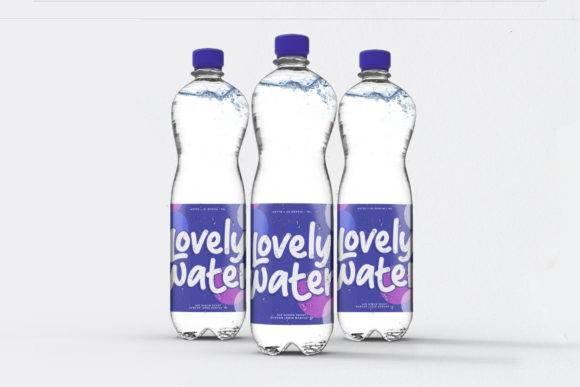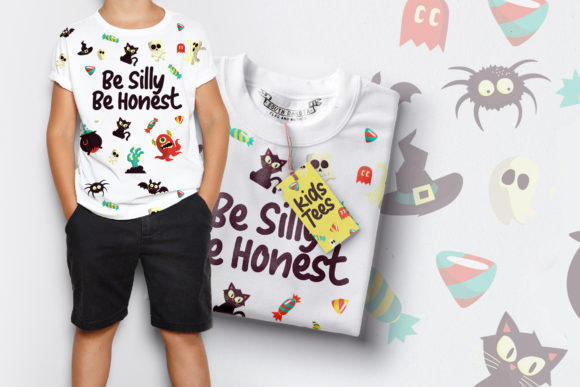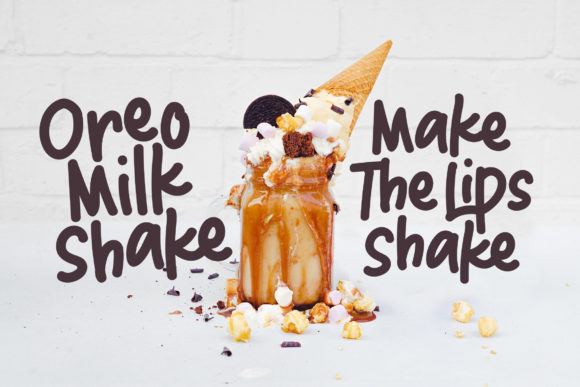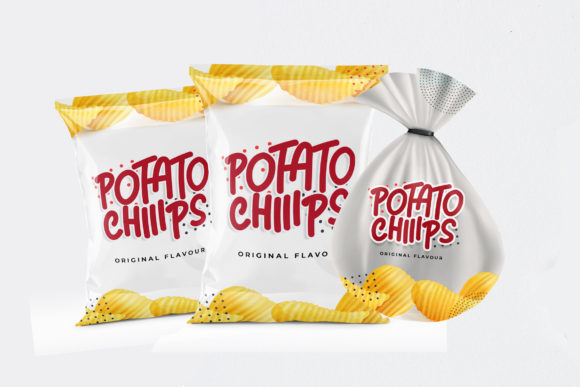
Candle Light Font: A Cute and Casual Display Font for Your Creative Projects
Are you looking for a font that can add a touch of warmth and friendliness to your designs? Look no further than Candle Light, a charming display font that’s perfect for a wide range of creative projects. In this article, we’ll take a closer look at Candle Light, exploring its features, benefits, and uses, as well as providing tips and inspiration for designers and crafters.
What is Candle Light Font?
Candle Light is a cute and casual display font with an incredibly friendly feel. Designed to evoke the warmth and coziness of a candle’s gentle glow, this font is sure to bring a smile to your face. Its playful, approachable style makes it perfect for use in a variety of contexts, from web design and print materials to moving images and more.
Key Features of Candle Light Font
So what makes Candle Light so special? Here are just a few of its key features:
- Cute and casual style: Candle Light has a playful, laid-back vibe that’s perfect for designs that need to feel friendly and approachable.
- Display font: With its bold, eye-catching style, Candle Light is designed to make a statement. Use it to add emphasis and draw attention to key messages or elements.
- Flexible: Whether you’re designing for web, print, or other applications, Candle Light will look spectacular. Its versatility makes it a great choice for a wide range of projects.
Benefits of Using Candle Light Font
So why should you choose Candle Light for your next project? Here are just a few benefits of using this lovely font:
- Adds warmth and personality: Candle Light’s friendly style can help bring a human touch to your designs, making them feel more approachable and engaging.
- Easy to read: Despite its playful style, Candle Light is surprisingly legible, making it a great choice for use in body text as well as headlines.
- Versatile: With its bold, display style, Candle Light can be used in a wide range of contexts, from posters and flyers to social media graphics and website headers.
Using Candle Light Font in Your Designs
So how can you use Candle Light in your designs? Here are a few ideas to get you started:
- Headlines and titles: Candle Light’s bold style makes it perfect for use in headlines and titles, where you want to grab attention and make a statement.
- Signs and posters: Add a touch of warmth and personality to your signs and posters with Candle Light. Its playful style is sure to stand out.
- Social media graphics: Use Candle Light to add a friendly touch to your social media graphics, from Facebook posts to Instagram stories.
- Web design: Candle Light can add a human touch to your website, making it feel more approachable and engaging.
Tips for Working with Candle Light Font
Here are a few tips to help you get the most out of Candle Light:
- Experiment with colors: Candle Light looks great in a range of colors, from bright and bold to soft and pastel. Experiment to find the perfect hue for your design.
- Play with layout: Candle Light’s playful style lends itself well to creative layouts. Don’t be afraid to experiment with different arrangements and typography.
- Pair with complementary fonts: For added visual interest, try pairing Candle Light with complementary fonts that add contrast and depth to your design.
Candle Light is a charming display font that’s perfect for designers and crafters looking to add a touch of warmth and friendliness to their projects. With its cute and casual style, flexible design, and easy readability, Candle Light is sure to become a favorite in your font collection. So why not give it a try? Download Candle Light today and see how it can bring a smile to your face and a touch of personality to your designs!